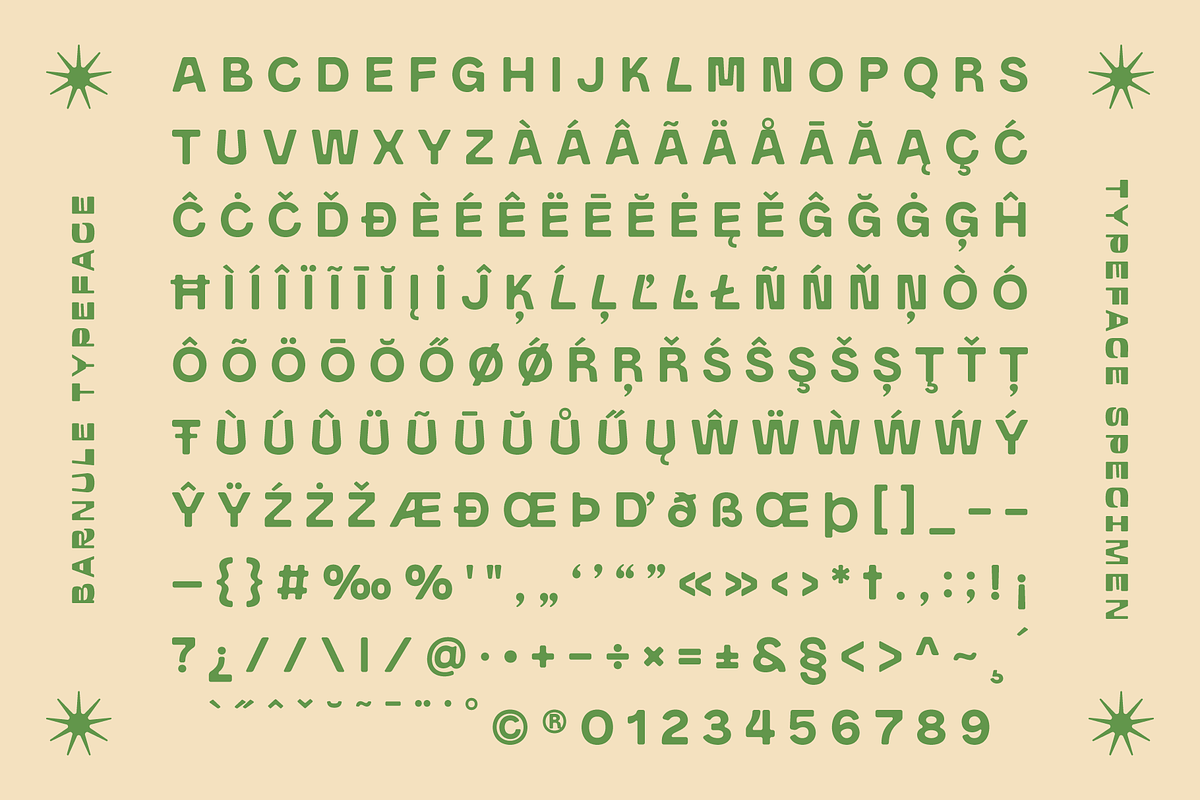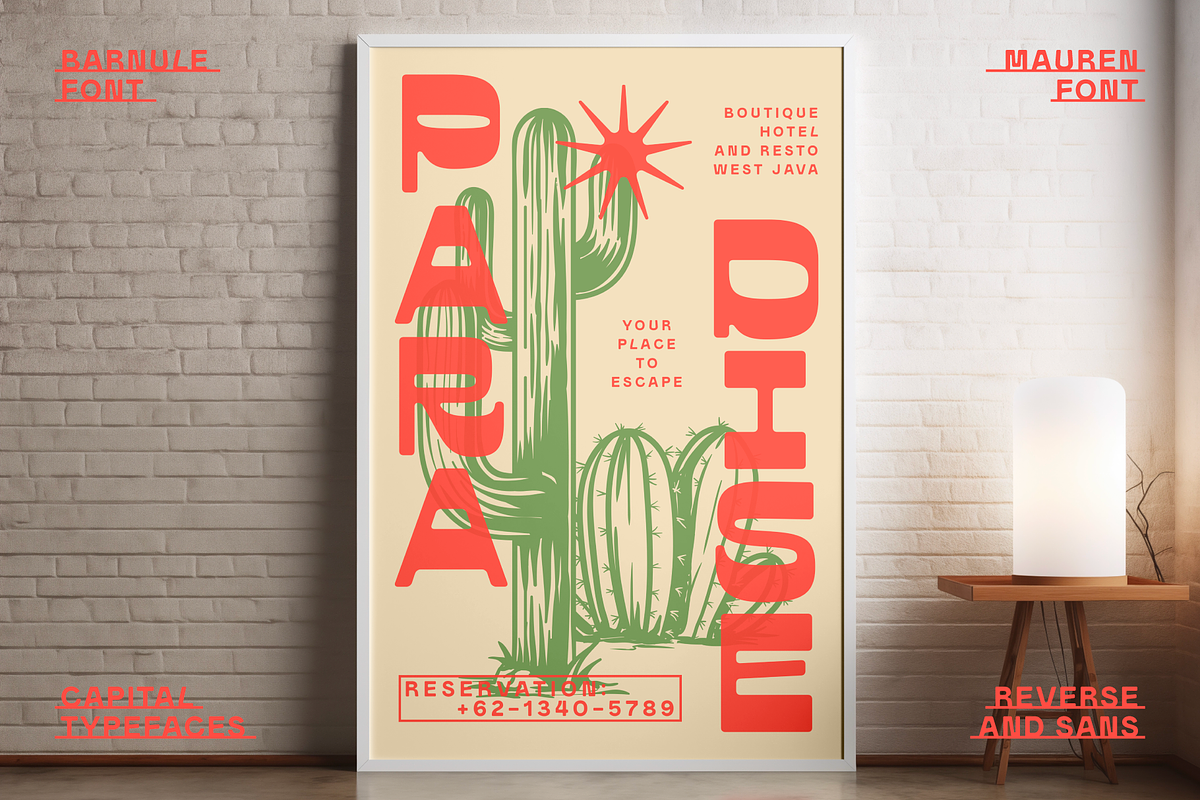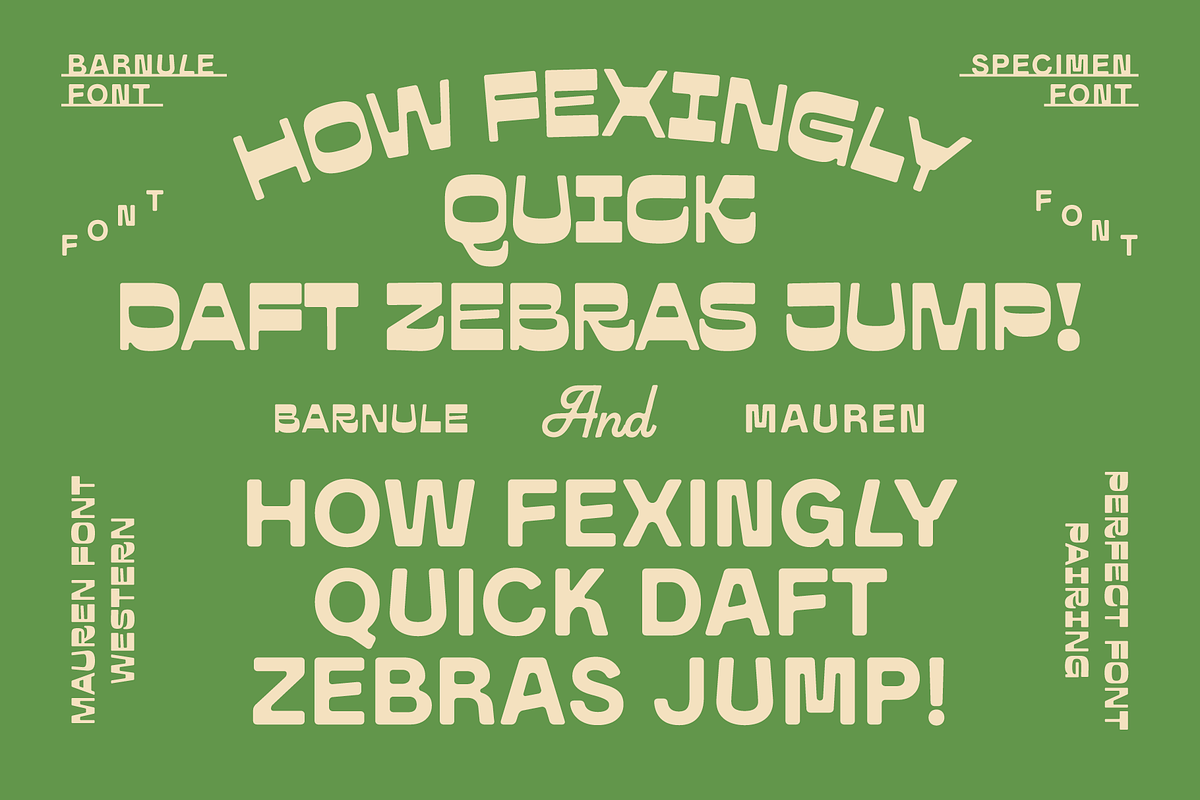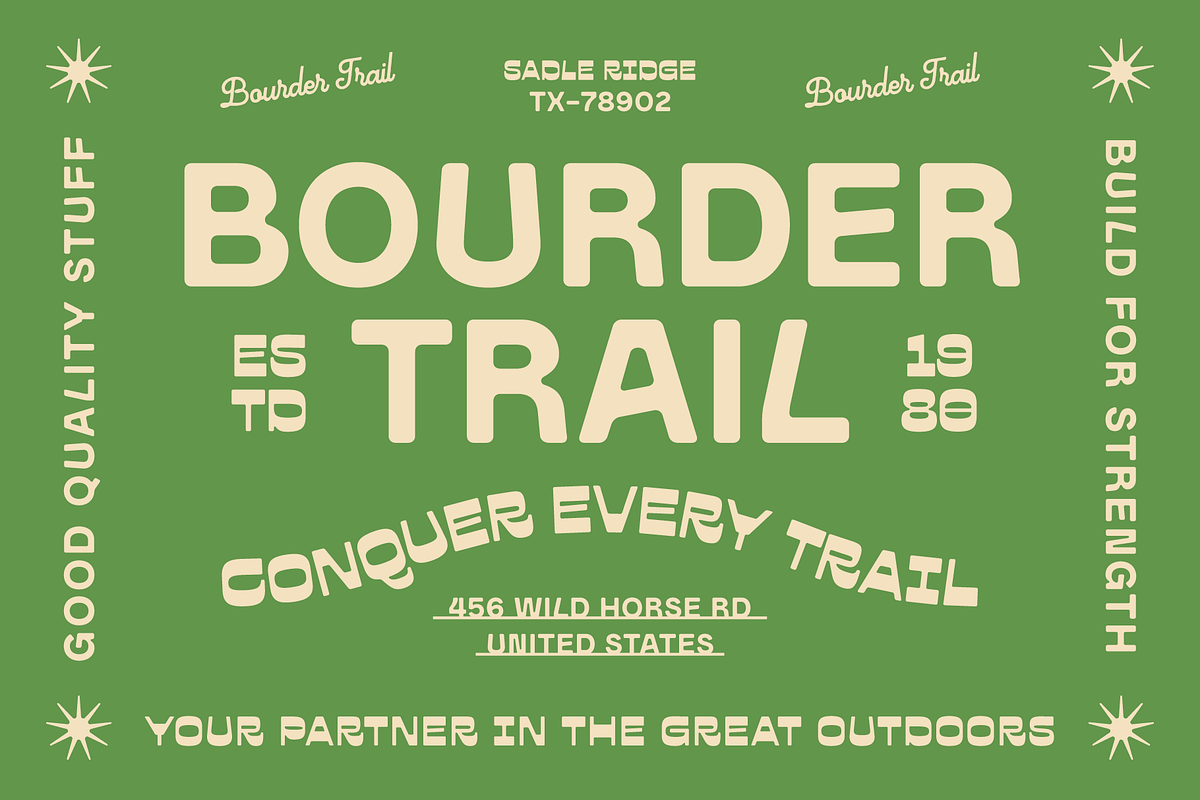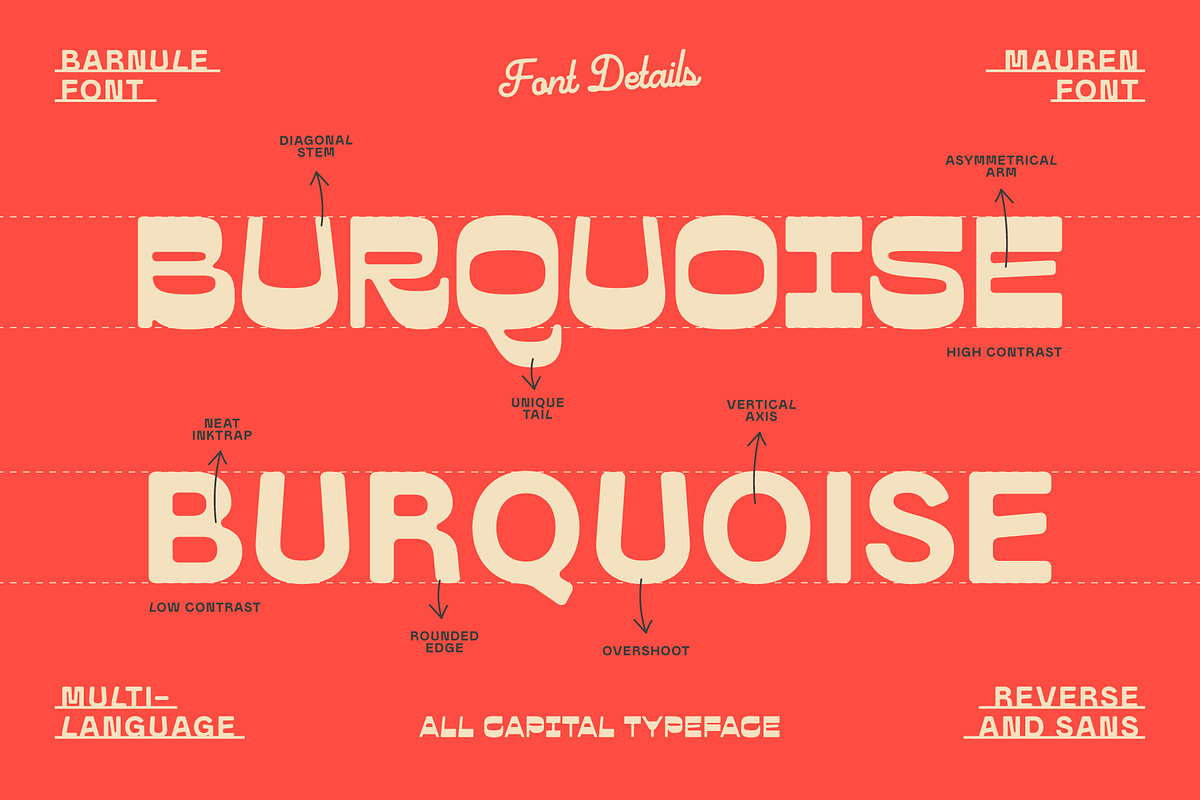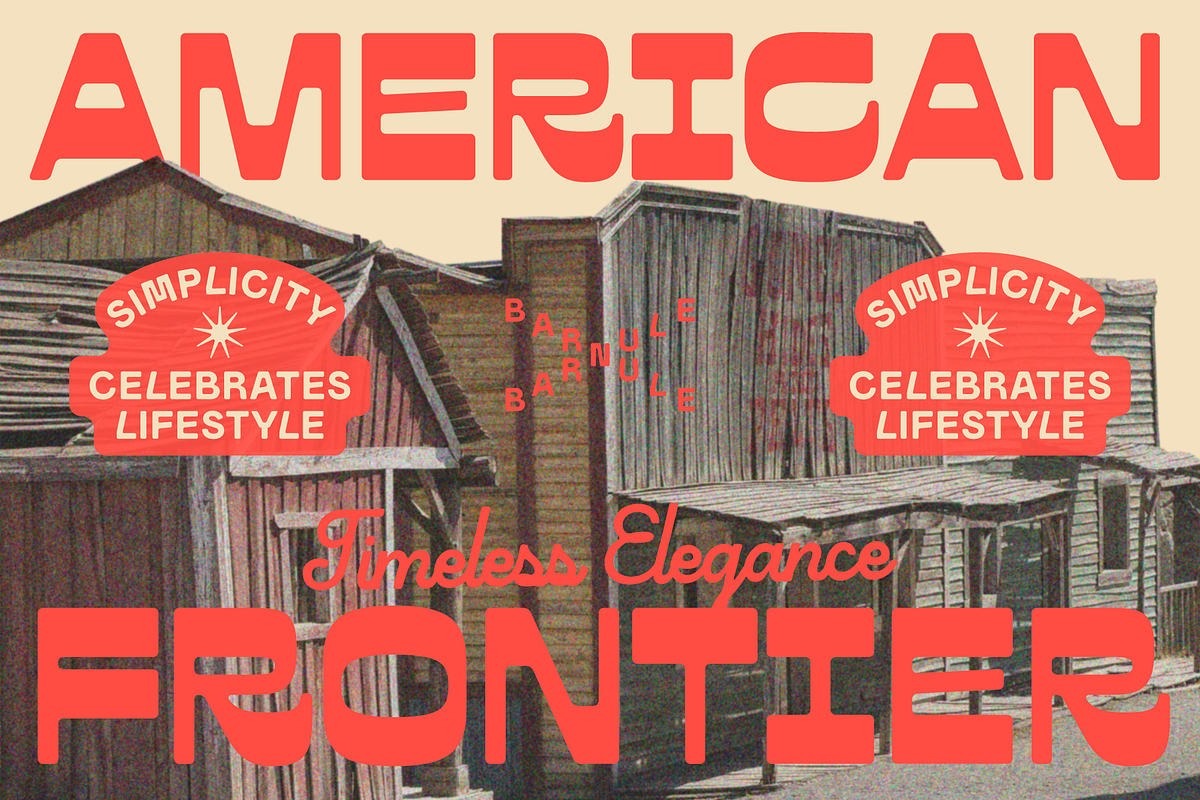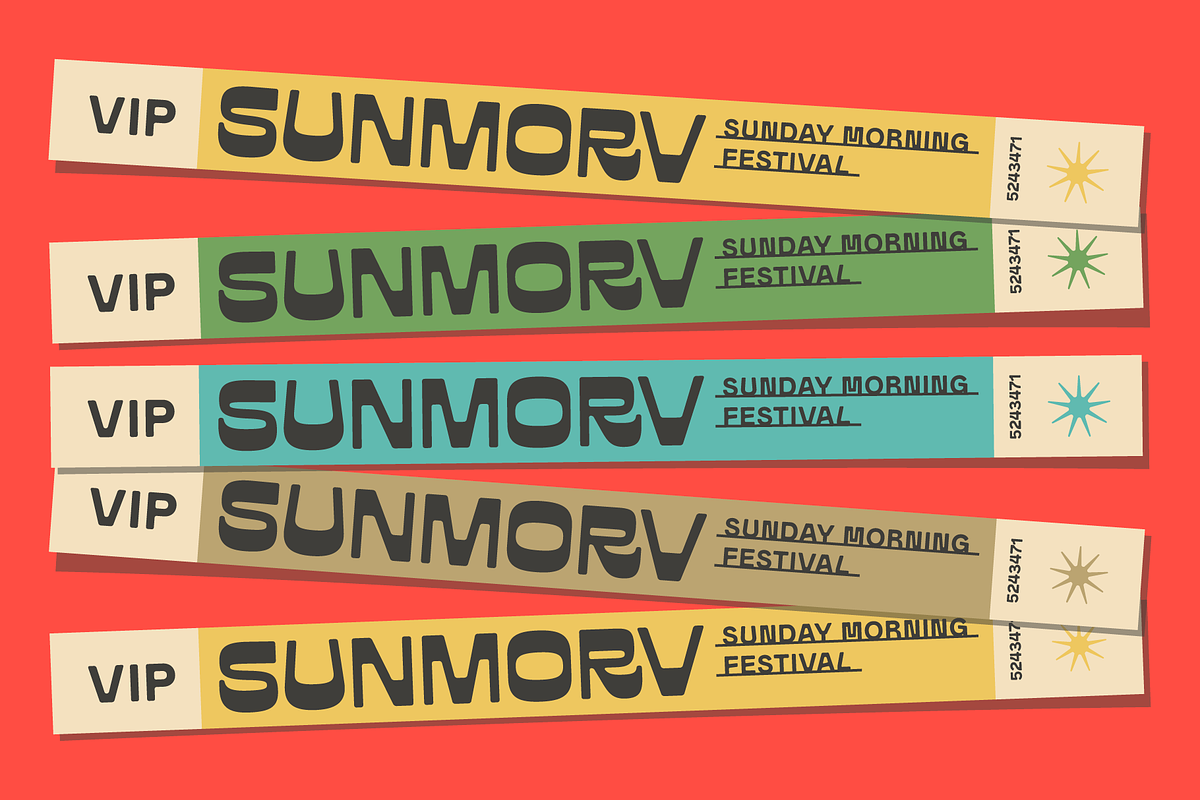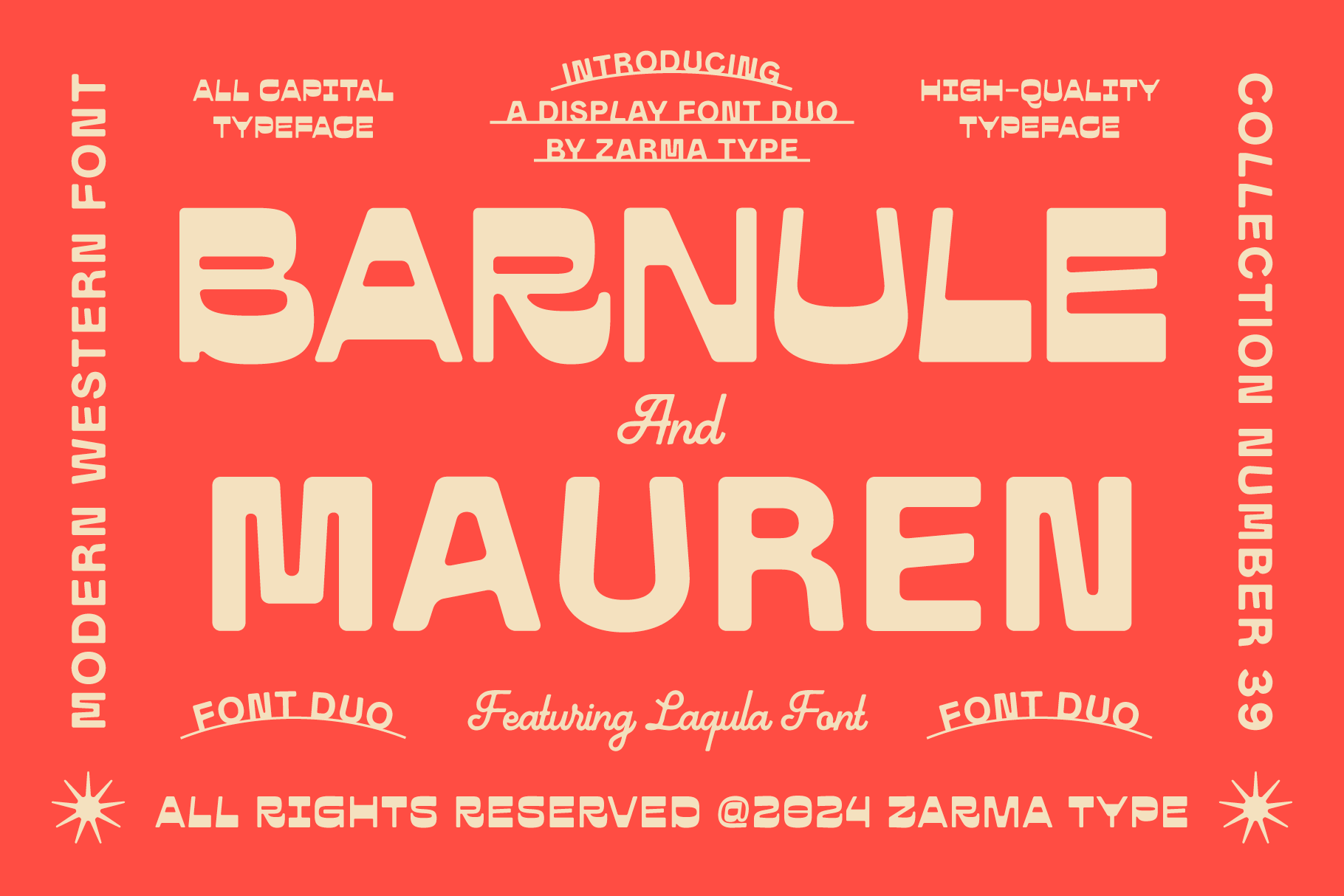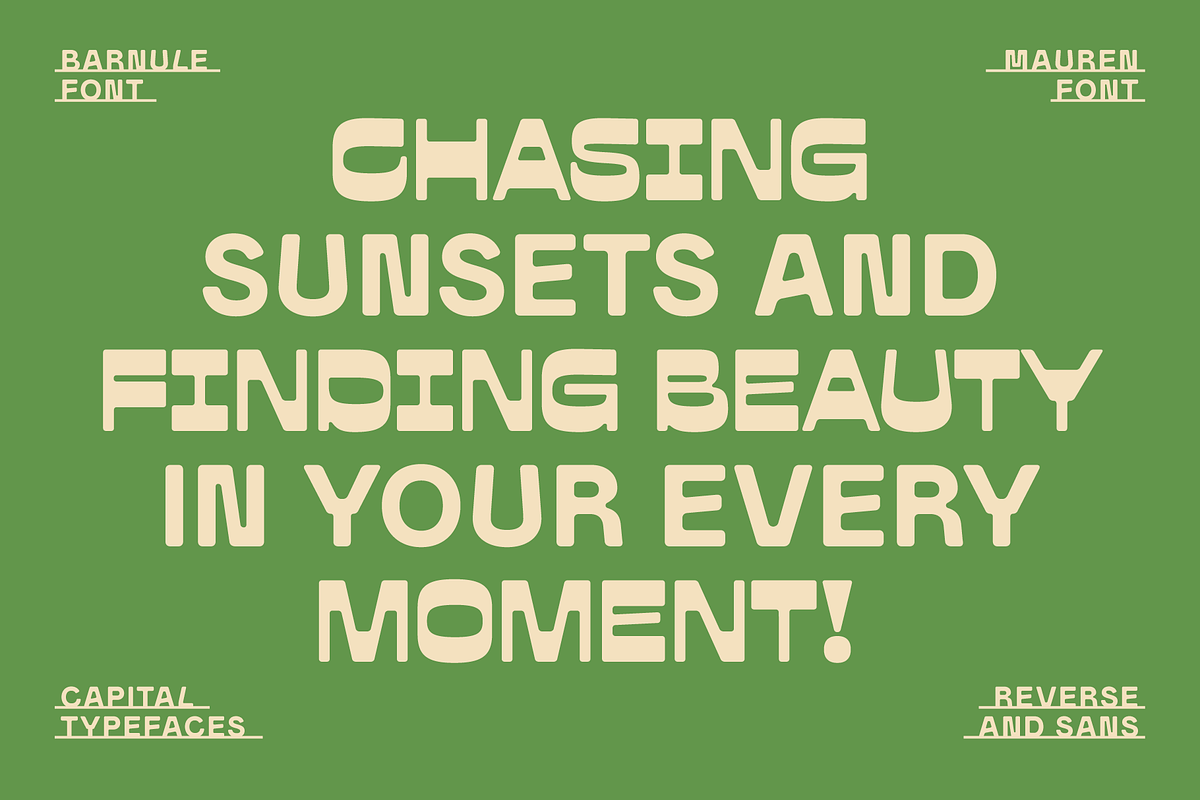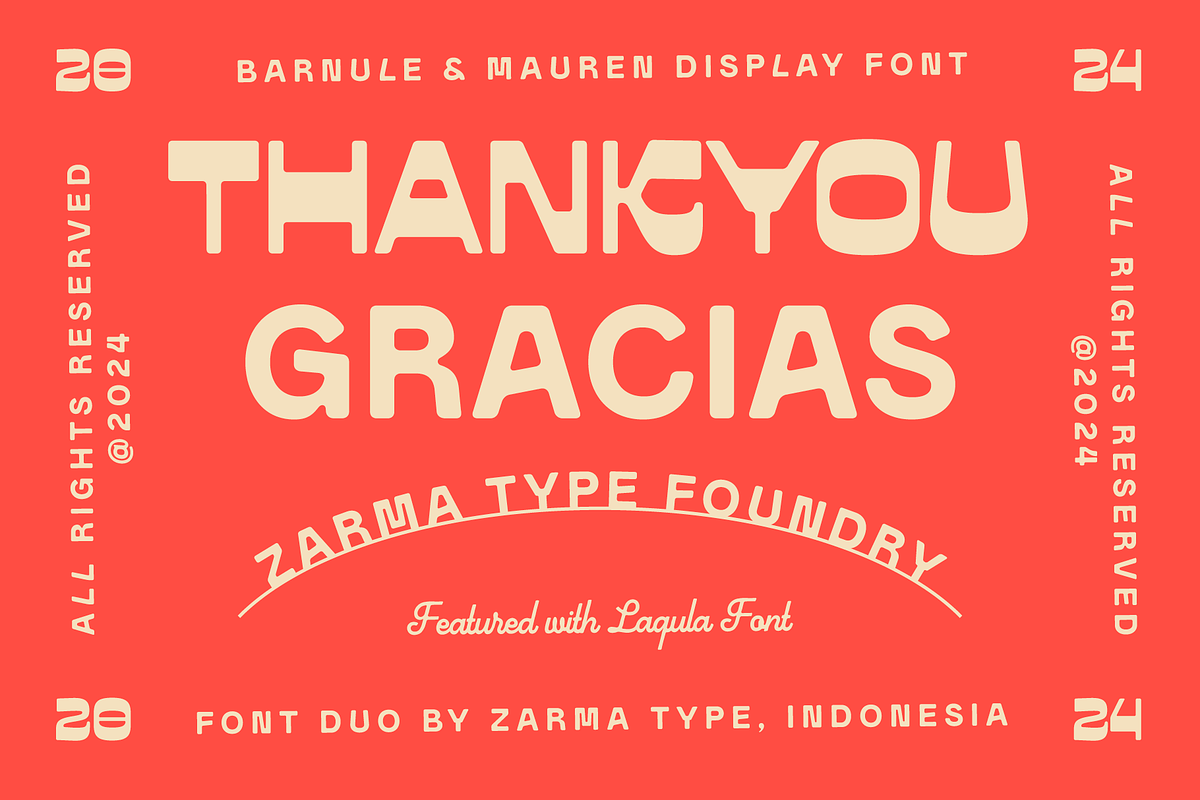
Barnule & Mauren - Western Font Duo
Barnule and Mauren Font Duo, the perfect blend of modern western flair and vintage appeal. With its bold, all-caps style and unique rounded edges, it’s designed to make your projects stand out. This font duo offers a clean, readable aesthetic, ideal for anything from apparel and packaging to branding and outdoor-themed designs. Its versatility shines in both digital and print, with a robust selection of alternate characters and multilingual support. Capture the essence of the American frontier with this timeless typeface that adds both simplicity and elegance to your work.